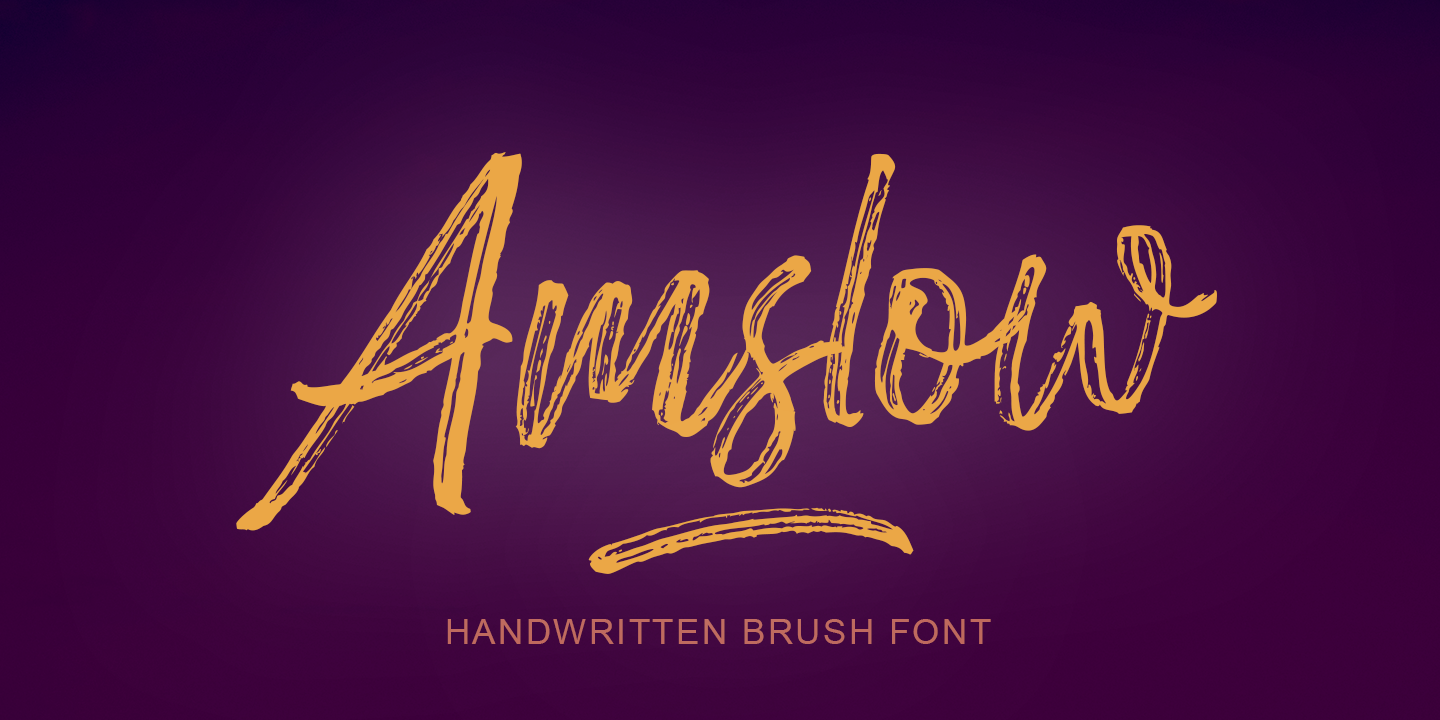
Amslow Brush Font is perfect for artistic branding, hand-painted signage, creative workshop materials, artisanal packaging, paint studio graphics, artistic publications, brush lettering projects, and expressive display typography.
What makes Amslow Brush Font exciting is its authentic brush-painted character that embodies artistic expression and hand-painted authenticity through flowing letterforms and painterly appeal. This creative typeface features brush construction, artistic details, and expressive personality that captures the essence of brush lettering and artistic craftsmanship, making it ideal for projects seeking to communicate artistic passion, creative authenticity, and hand-painted quality with genuine brush appeal and artistic sophistication.
The Amslow Brush Font family includes Regular and Bold weights, each maintaining the characteristic brush texture and artistic appeal that define this distinctive typeface's creative personality and painterly sophistication.
Amslow Brush Font Free Download provides access to a typeface that perfectly captures the essence of brush lettering and artistic expression. This creative font brings authentic painterly aesthetics to contemporary projects, making it essential for art studios, creative agencies, and artistic brands targeting audiences who appreciate hand-painted authenticity and brush lettering craftsmanship. The font's brush construction and artistic details ensure immediate recognition of creativity and authenticity while its distinctive character creates inspiring connections among individuals seeking artistic experiences and creative expression. Whether designing art studio materials, creative workshop campaigns, or artistic brand communications, this font delivers the brush authenticity and artistic sophistication that creative audiences expect. Its artistic foundation and brush symbolism make it indispensable for projects celebrating artistic expression, creative craftsmanship, and the beautiful spontaneity of brush lettering, ensuring communications resonate with audiences who value the artistic freedom, creative authenticity, and painterly sophistication that define genuine artistic expression and hand-painted craftsmanship across diverse creative and artistic applications.